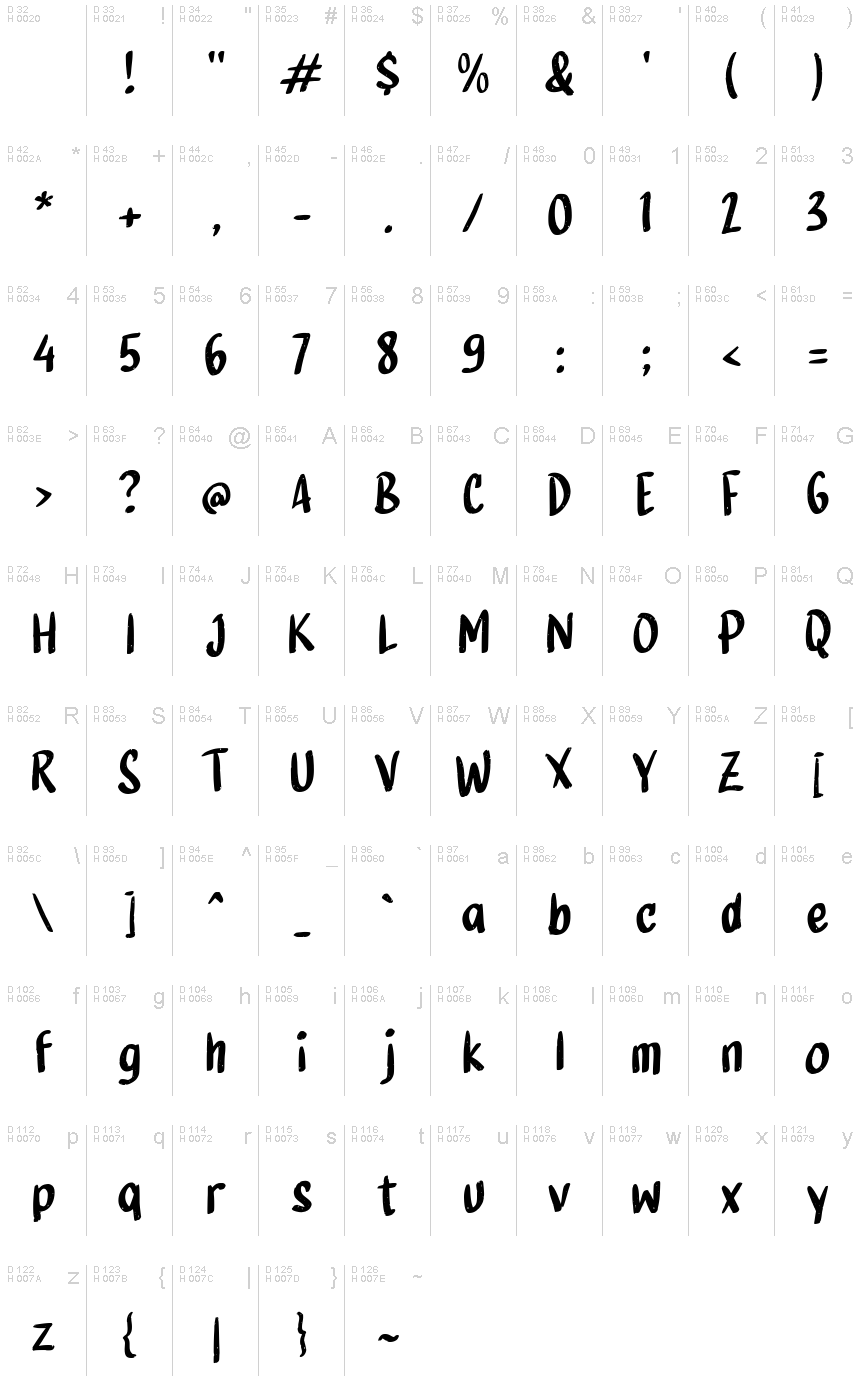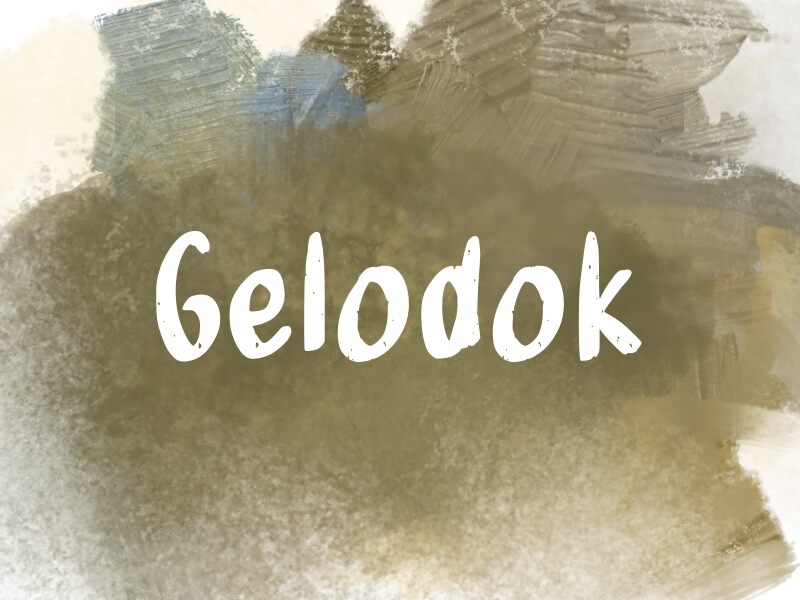
Gelodok
Gelodok, a captivating brush font designed by wep, exudes a sense of effortless elegance and creative flair. Its condensed, fluid strokes evoke a handcrafted aesthetic, lending an organic, artisanal feel to any design. The font's bold, expressive curves and dynamic flourishes command attention, making it a standout choice for projects that seek to convey a distinct, artistic character.
Gelodok's versatility shines through, making it a versatile choice for a variety of design applications. Its bold, attention-grabbing presence makes it an excellent selection for headlines, logotypes, and impactful branding initiatives. Moreover, the font's condensed width allows for seamless integration into space-conscious layouts, such as packaging, editorial designs, and digital interfaces, where its distinctive flair can truly shine.